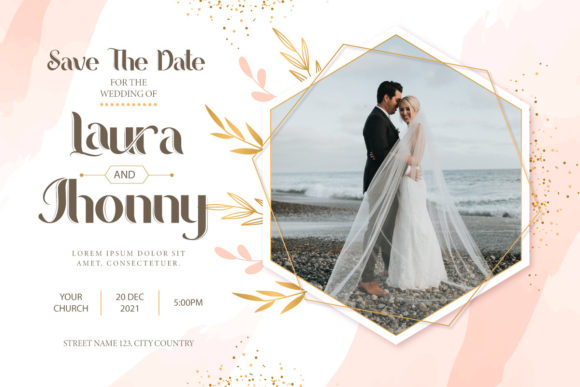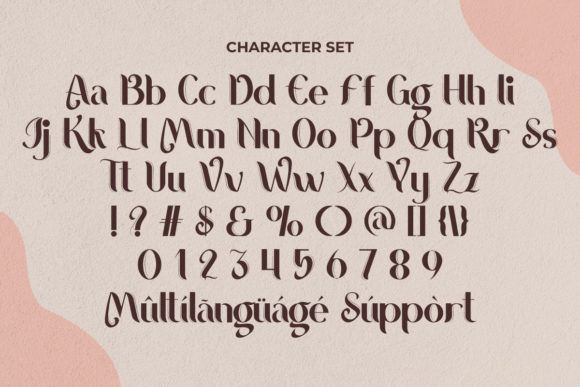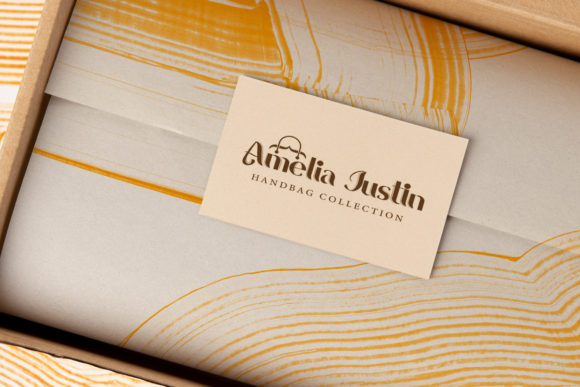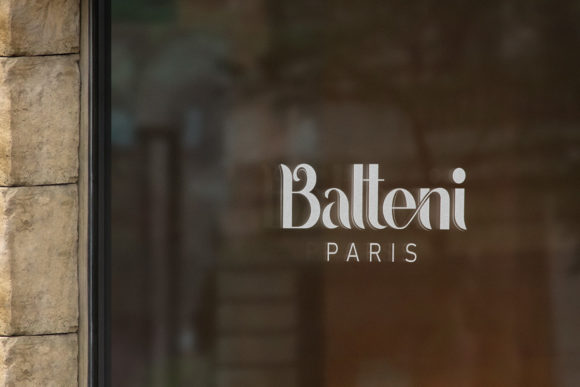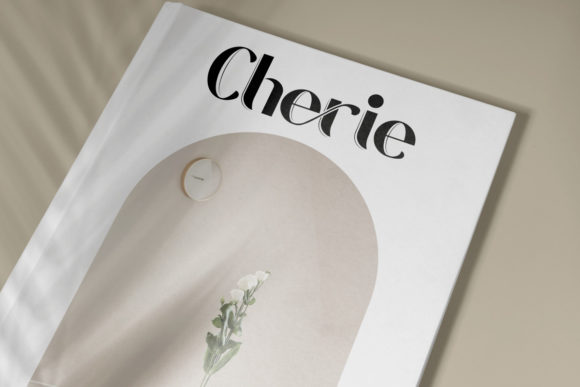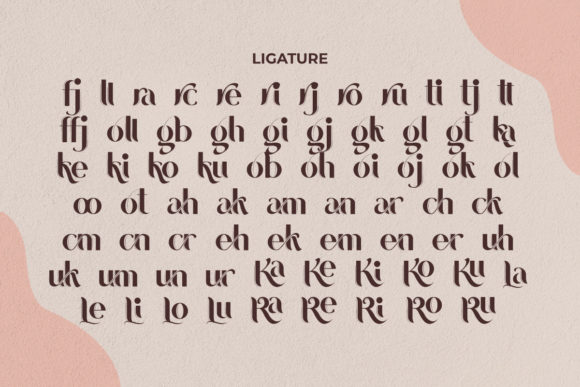
Introduction to Hollanburg Font
Have you ever been working on a creative project, pouring your heart and soul into every detail, only to realize that the perfect font is missing? This is where the Hollanburg Font comes in – a game-changer for designers looking to elevate their work. With its unique style and versatility, this font is a must-have in every designer’s toolkit.
What sets Hollanburg Font apart is its PUA encoding, allowing for seamless access to its extensive library of glyphs and ligatures. This means you can confidently add it to your favorite creations, knowing that every detail will be precise and high-quality. Whether you’re working on a design project, crafting a logo, or simply experimenting with new ideas, the Hollanburg Font is an invaluable resource that will take your work to the next level.
Key Features of Hollanburg Font
- Designed with a unique, modern aesthetic, the Hollanburg Font is perfect for adding a touch of sophistication to any design project.
- Perfect for use in graphic design, digital art, and other creative pursuits, the Hollanburg Font is a valuable addition to any design resource.
Honest Review: Hollanburg Font
What works well with the Hollanburg Font is its ability to provide a transparent background, allowing designers to easily customize and integrate it into their designs. The font’s clean and modern aesthetic makes it suitable for a variety of creative projects, from digital art to branding materials.
Here are some of the key features that stood out to me:
- ✨ Unique and stylish design
- ✨ High-quality design suitable for creative projects
While the Hollanburg Font is a great addition to any design resource, there are some limitations to consider:
- ⚠️ Limited font styles available (only one style is currently offered)
Getting the Most Out of Hollanburg Font
To get the most out of the Hollanburg Font, use it in conjunction with a transparent background to create visually appealing designs. Experiment with different font sizes, colors, and styles to add depth and creativity to your project.
The Hollanburg Font is suitable for a wide range of creative projects, including logo designs, brochures, and social media graphics. Its high-quality typography and versatility make it an ideal choice for designers and non-designers alike.
Yes, the Hollanburg Font has a transparent background, making it ideal for use on various backgrounds and designs. This feature allows you to easily combine the font with other design elements and create a cohesive look for your creative project.